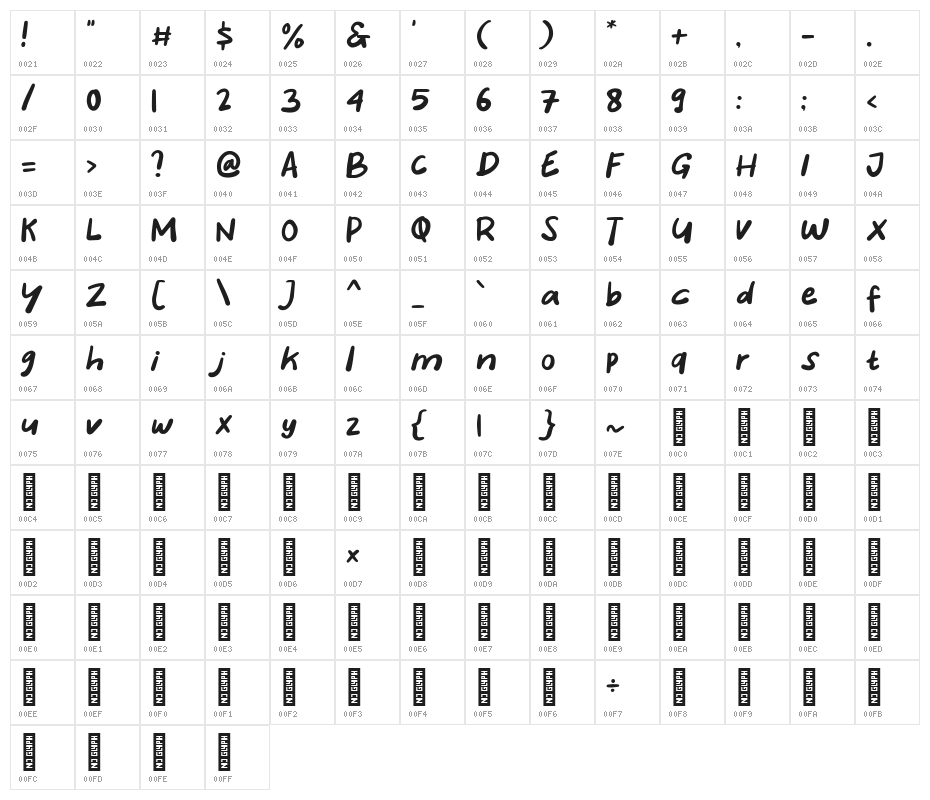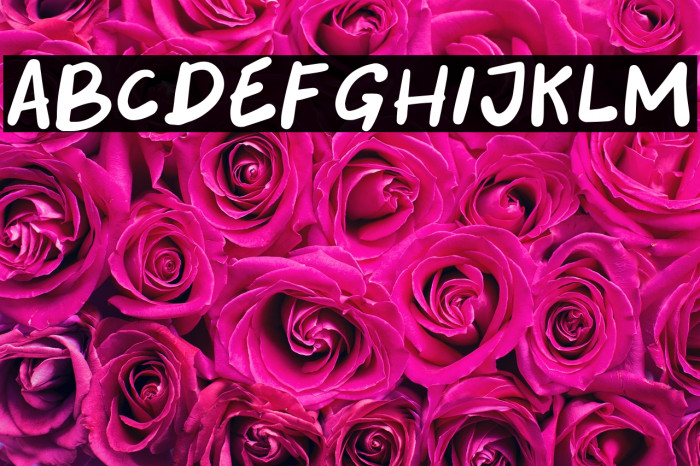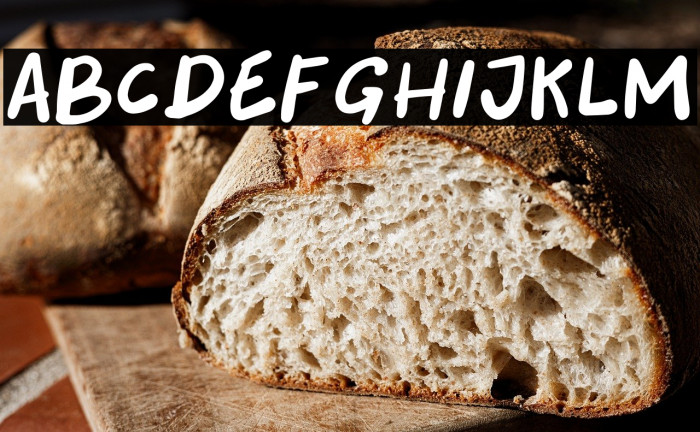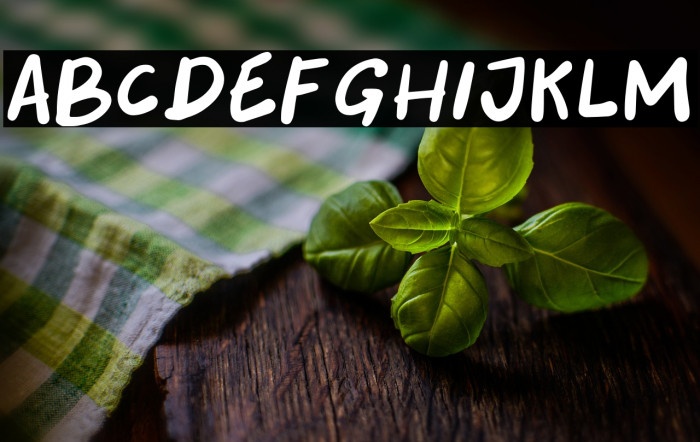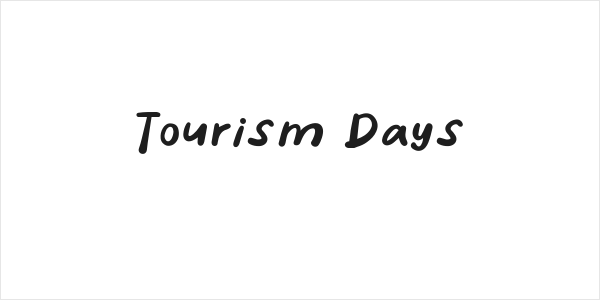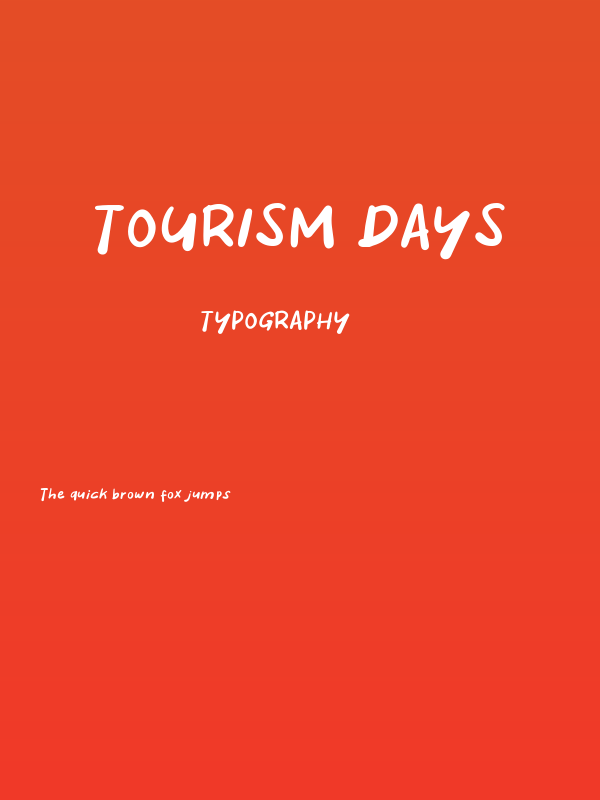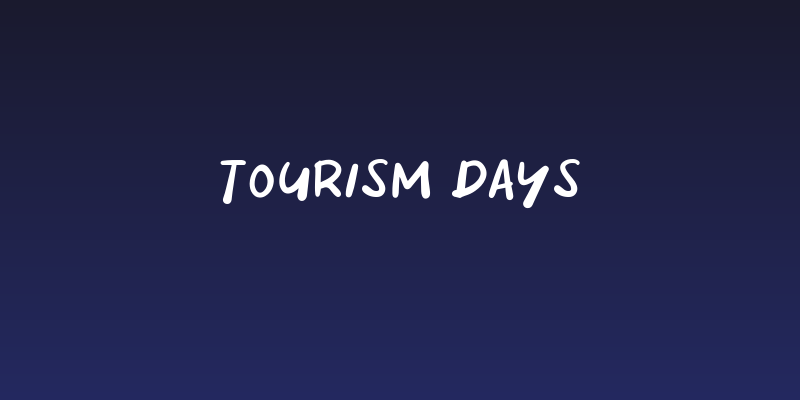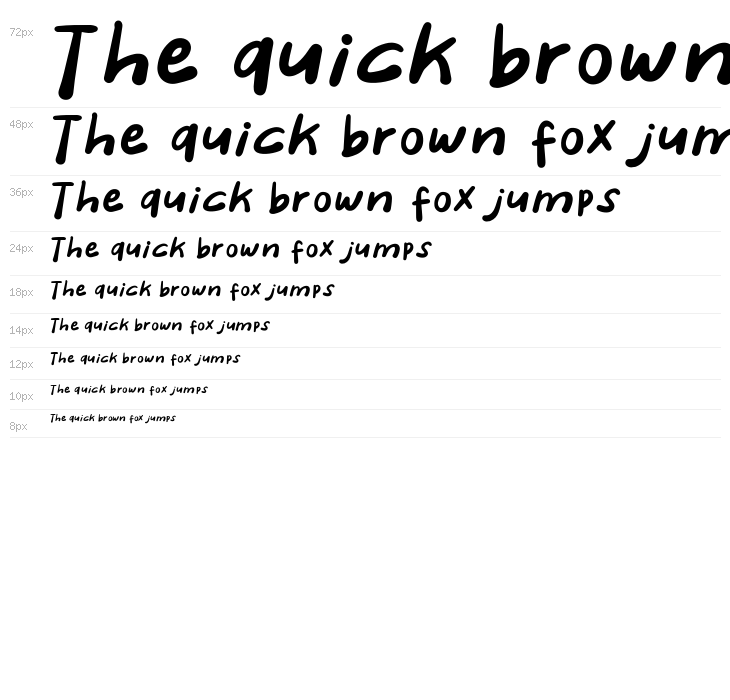
Tourism Days Font
Tourism Days Description
This font features a playful and casual handwritten style, characterized by its smooth, rounded strokes and slightly uneven baseline, giving it a friendly and approachable appearance. The letters are bold and have a consistent thickness, which enhances readability while maintaining a relaxed feel. The uppercase and lowercase letters are well-balanced, with a slight slant that adds to the informal aesthetic. Numbers and special characters follow the same style, ensuring uniformity across all elements. This font is ideal for projects that require a personal touch or a sense of warmth and creativity.
| Use Case | Logos, Headlines, Informal Text |
| Proposed Projects | Ideal for greeting cards, invitations, children's books, and casual branding. |